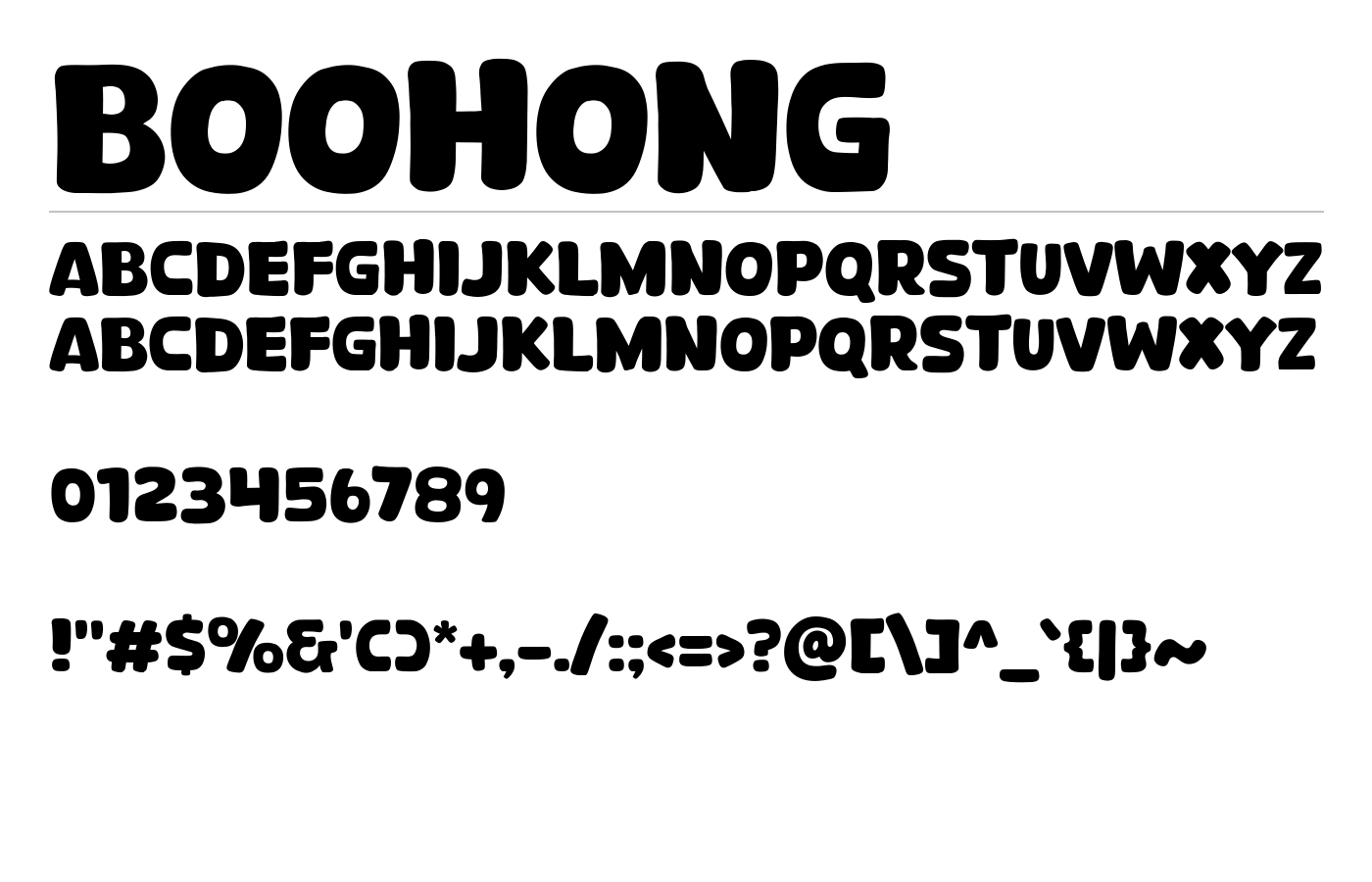
Boohong Font is a bold, playful sans serif typeface with rounded, chunky letterforms that convey a friendly and approachable vibe. Its consistent stroke weight and slightly irregular shapes give it a hand-crafted, casual feel, making it perfect for fun headlines, children’s products, or informal branding. This font works best in designs that seek to create an inviting and energetic atmosphere.
Boohong Font
About Boohong Font